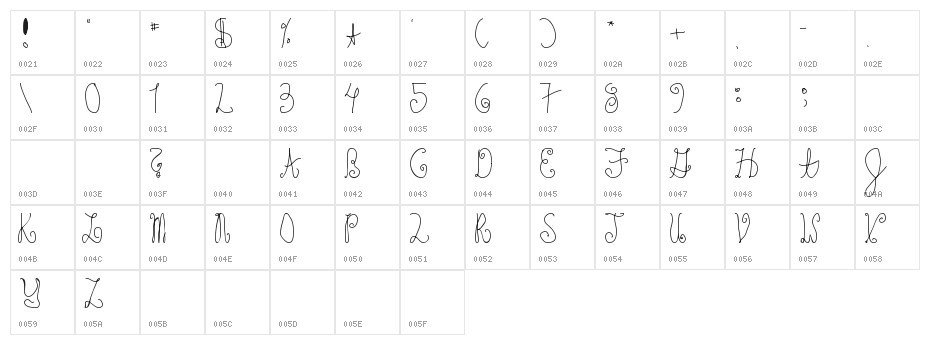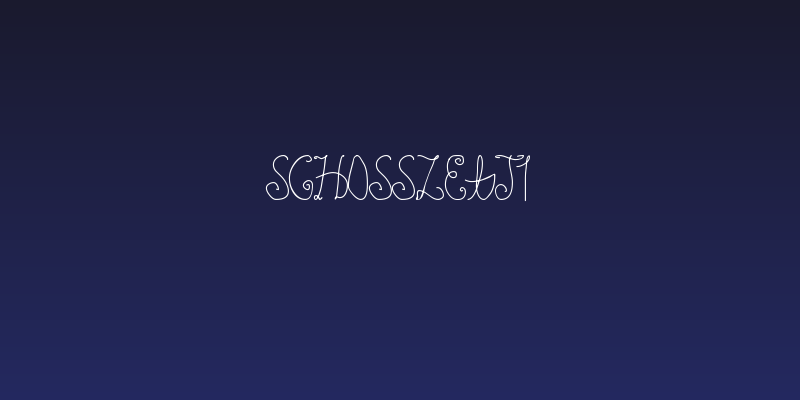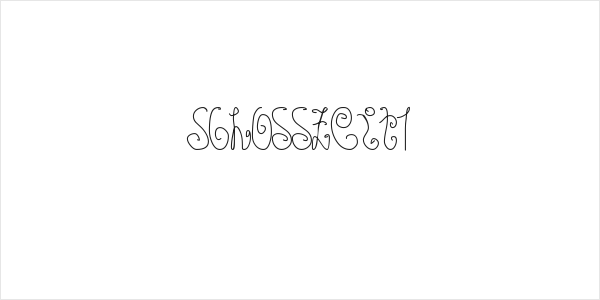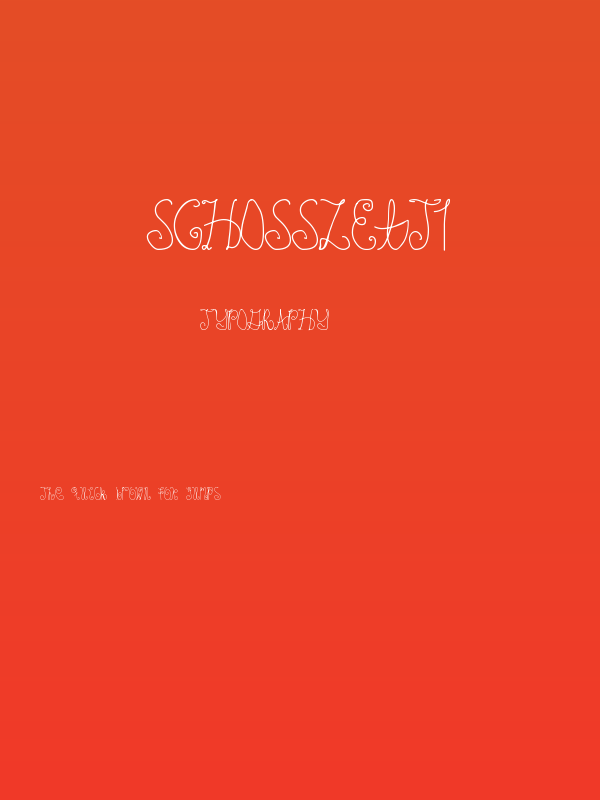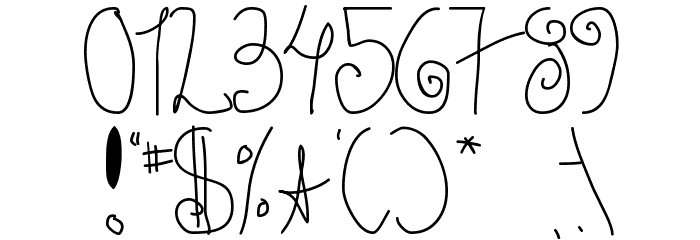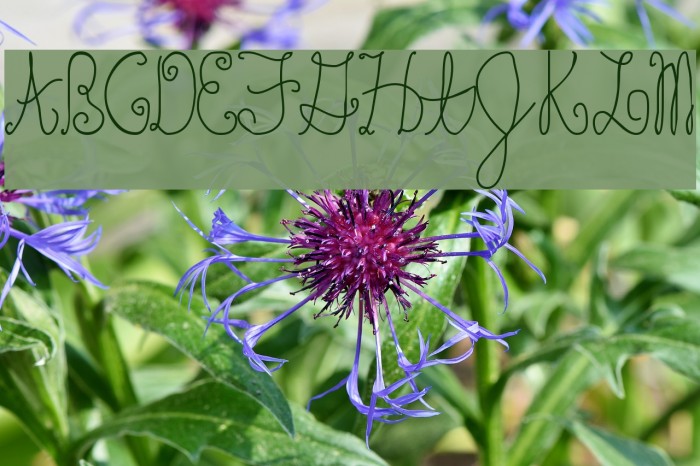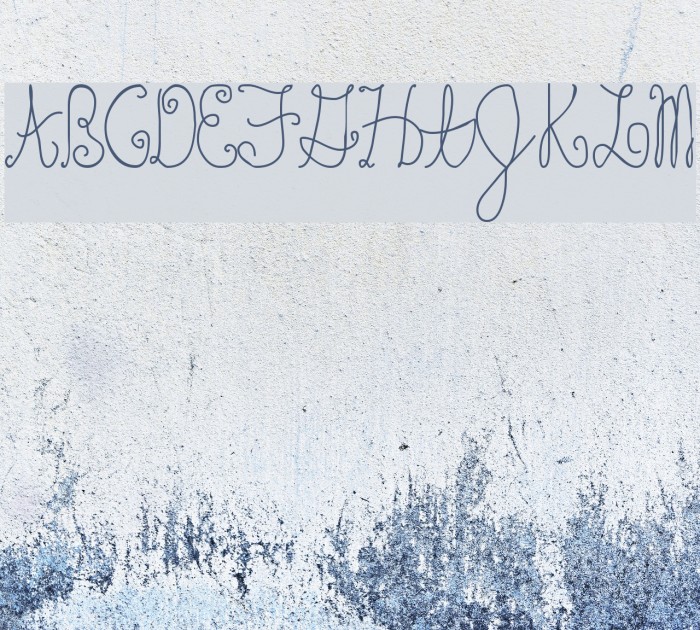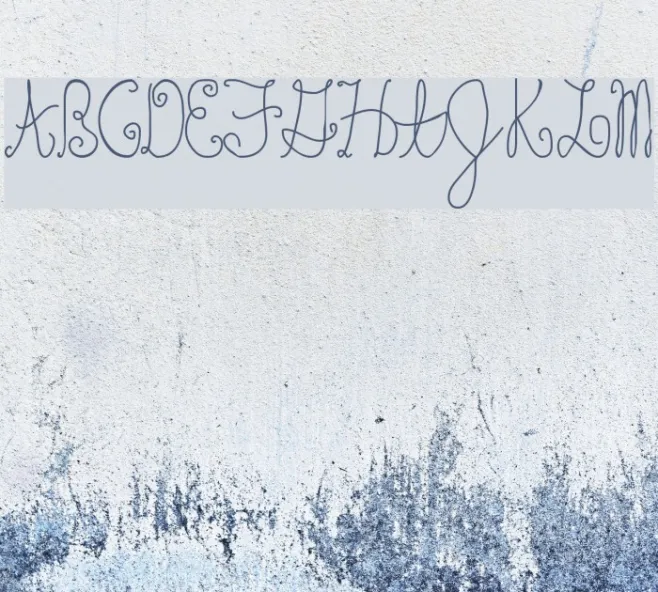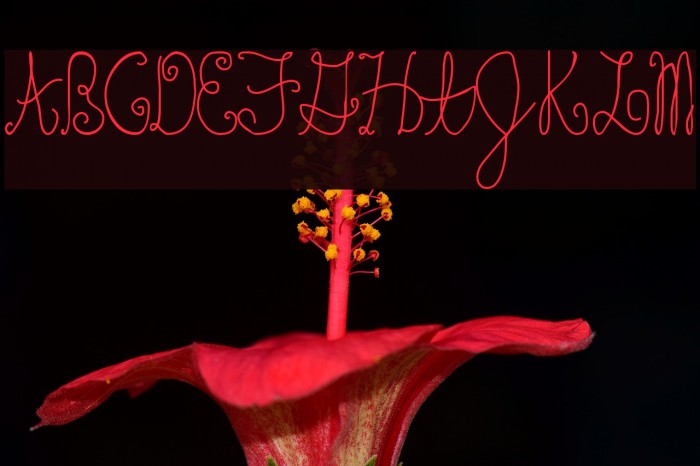
Schosszeit1 Font
Schosszeit1 Description
This font features an intricate and whimsical design, characterized by its flowing, curly lines and playful loops. Each character is uniquely crafted with a sense of movement and elegance, making it stand out as a decorative choice. The uppercase letters are bold and artistic, while the lowercase letters maintain a consistent style with a slightly more subdued flair. Numbers and special characters follow the same ornate pattern, adding to the font's cohesive look. The overall appearance is both artistic and legible, suitable for creative projects that require a touch of personality and flair.
| Proposed Projects | Ideal for invitations, greeting cards, artistic posters, and branding that requires a unique and decorative touch. |